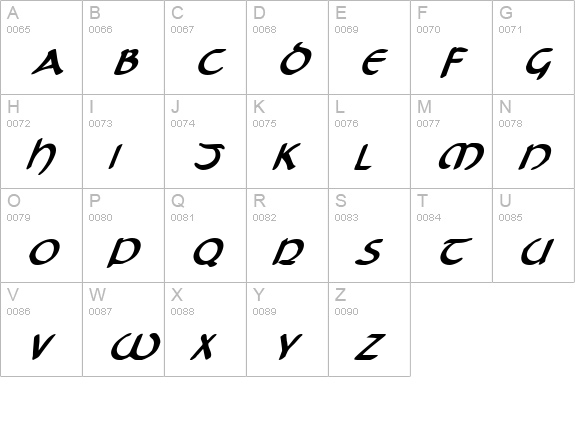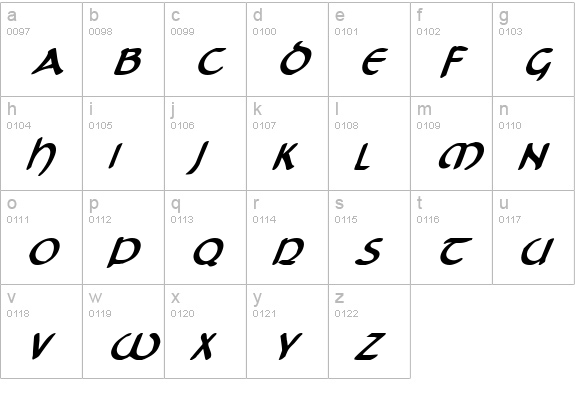
Tristram Bold Italic is a strong, high-contrast, italic variant in the Tristram typeface family \xE2\x80\x94 well suited to headlines, attention-grabbing titles, and strong calls-to-action.
Tristram Bold Italic font is a stunning display typeface that exudes elegance and sophistication. With its bold and italic design, this font commands attention and adds a touch of class to any project. Perfect for headlines, logos, and branding materials, Tristram Bold Italic font is sure to make a bold statement. The best part? Tristram Bold Italic font is available for free download at FontsMarket.com. Simply visit the website and start using this beautiful font in your designs today. Don't miss out on the opportunity to enhance your projects with the timeless appeal of Tristram Bold Italic font.